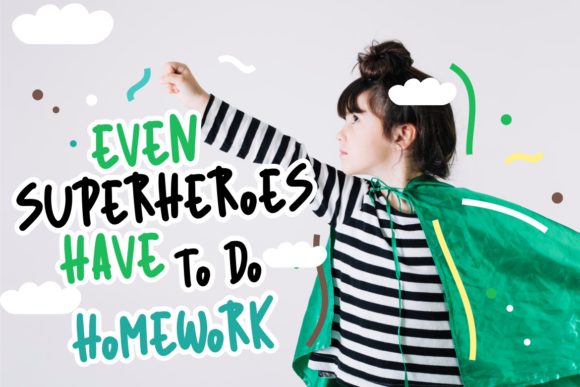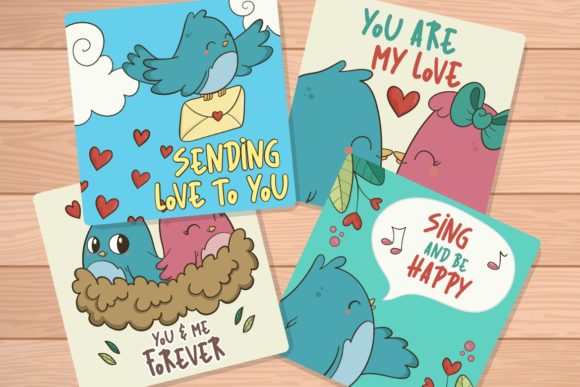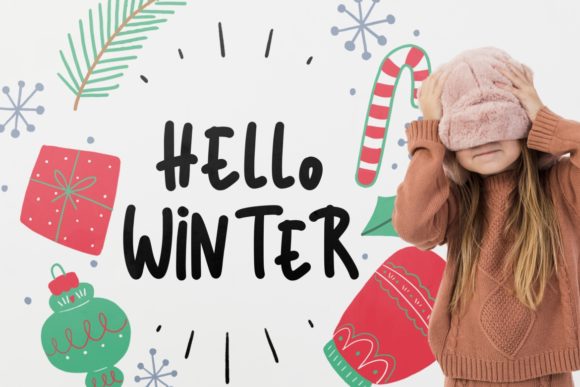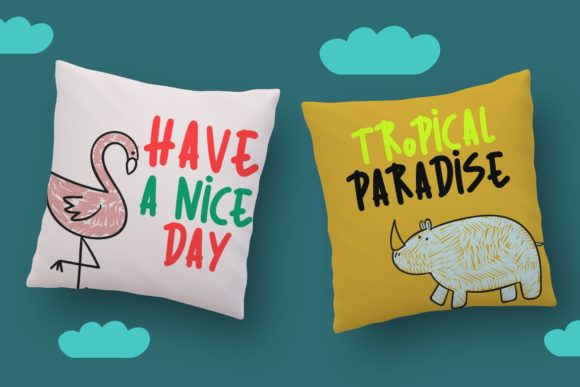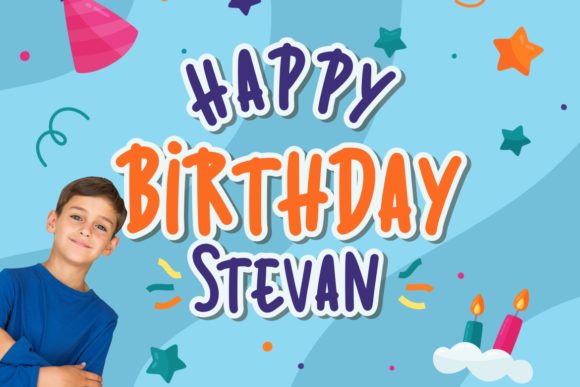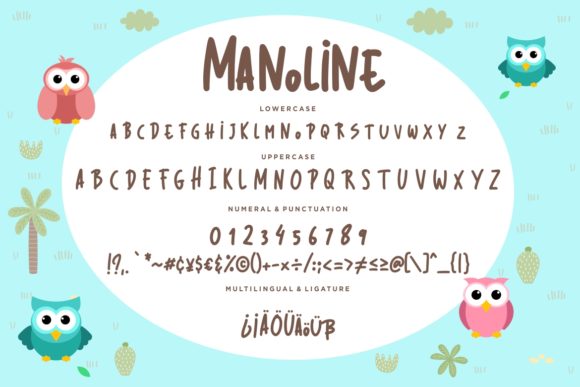
Introduction to Manoline Font
Manoline is a friendly and fun font.
It’s perfect for logos, social media posts, advertising, invitations, stationery and much more Fall in love with its playful look & feel.